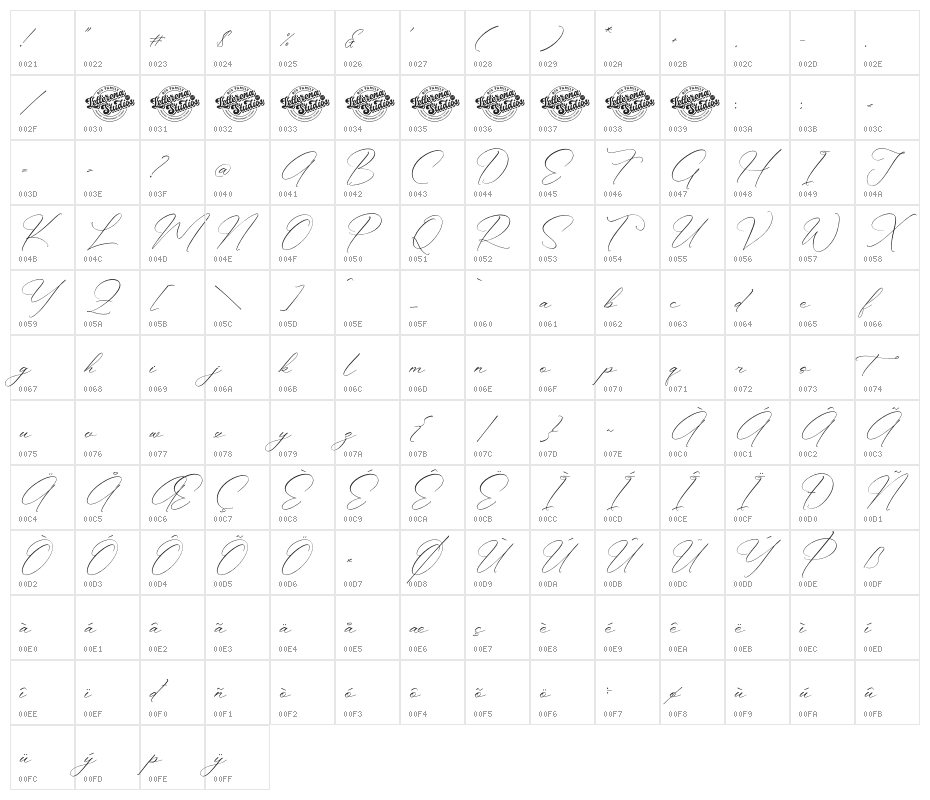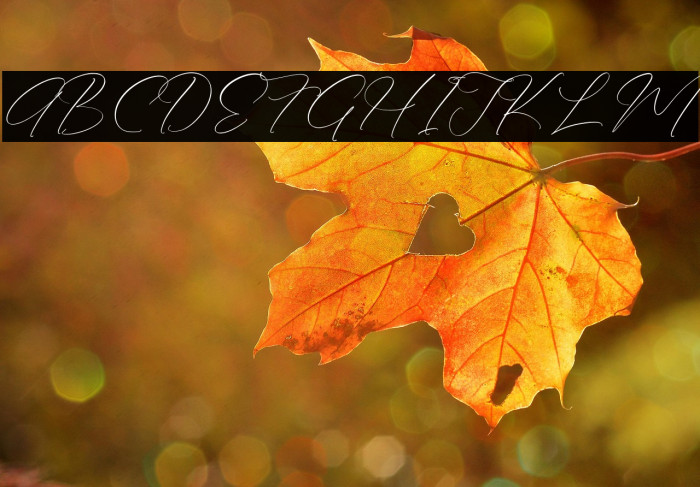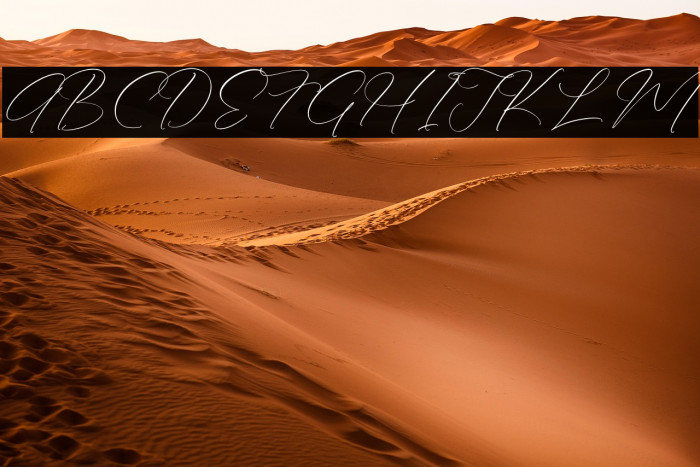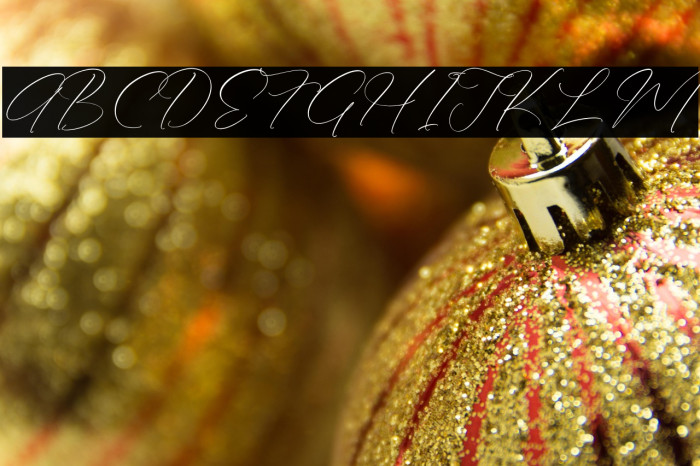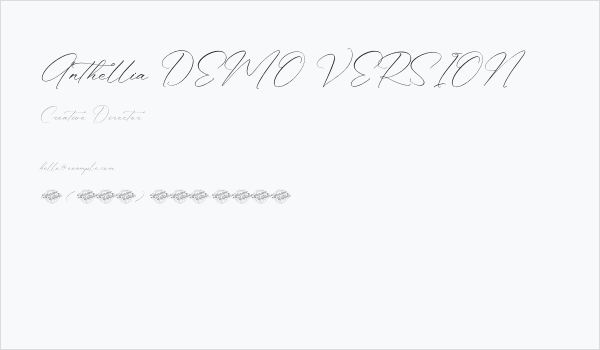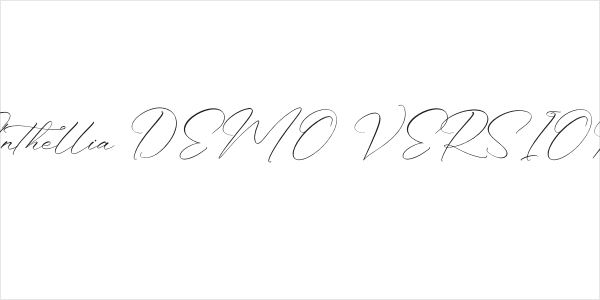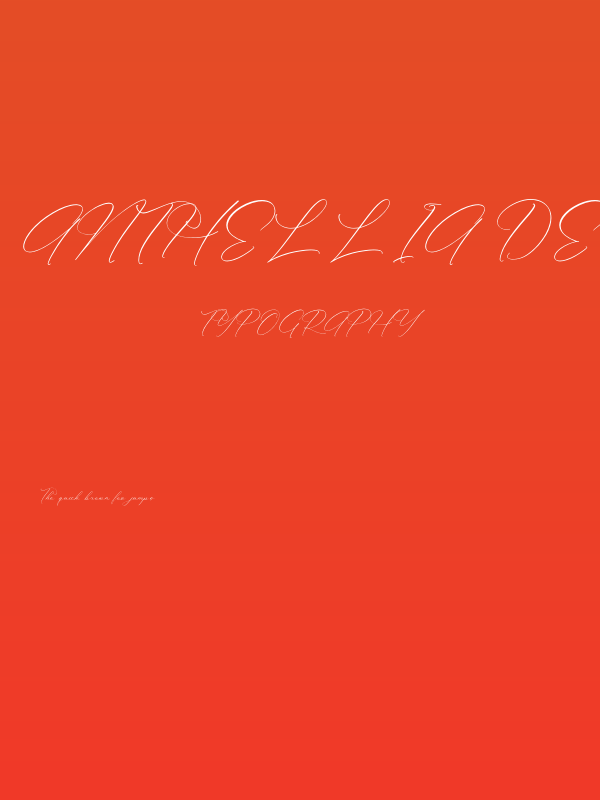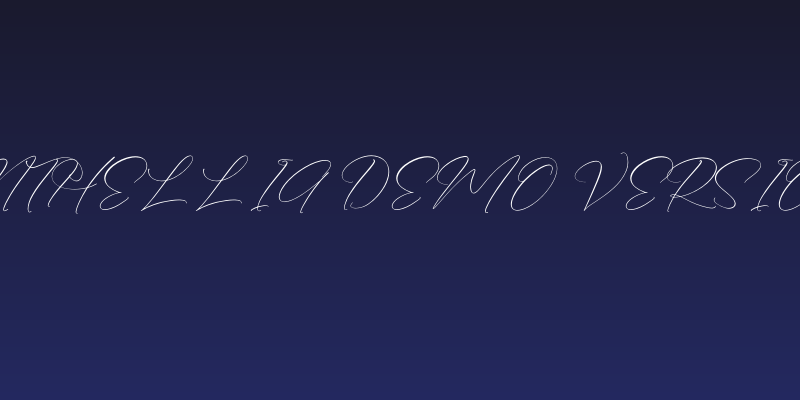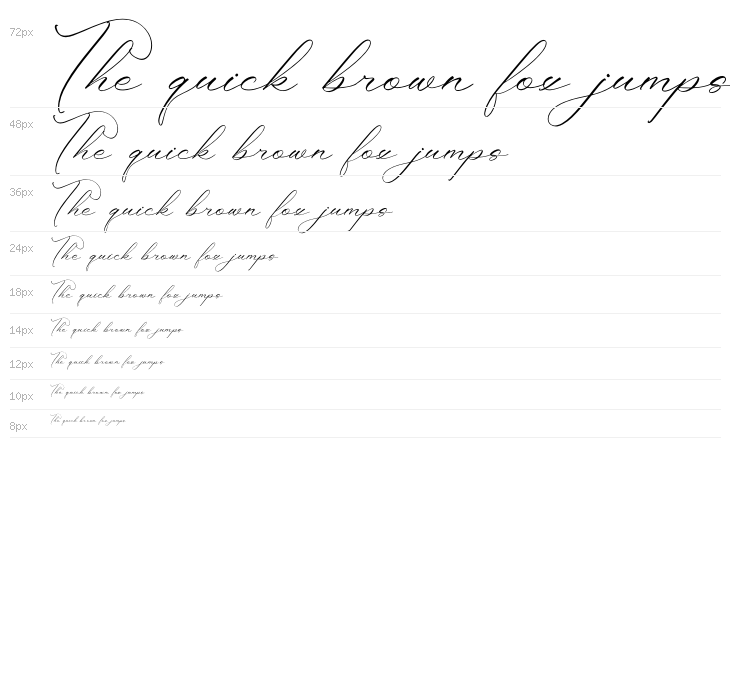
Anthellia DEMO VERSION Font
Anthellia DEMO VERSION Description
This elegant script font features fluid, cursive strokes that convey a sense of sophistication and grace. The uppercase letters are tall and slender, with delicate loops and swashes that enhance their decorative appeal. The lowercase letters maintain a consistent flow, with gentle curves and connections that create a harmonious appearance. The numerals and special characters are designed to complement the overall style, ensuring versatility in various applications. This font's refined aesthetic makes it ideal for projects that require a touch of elegance and class.
| Overall Style | Elegant, Decorative |
| Proposed Projects | Ideal for wedding invitations, elegant branding, personal stationery, and luxury product packaging. |